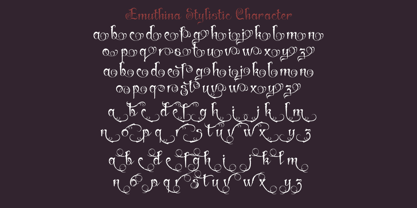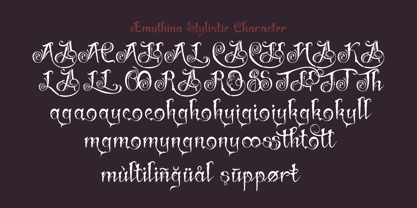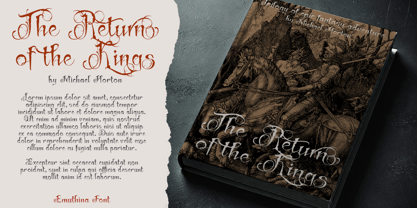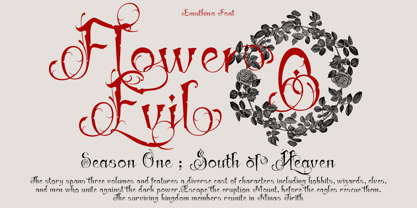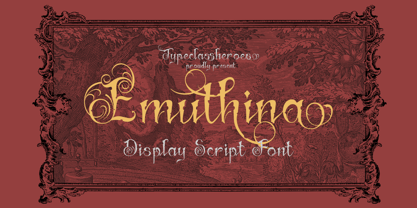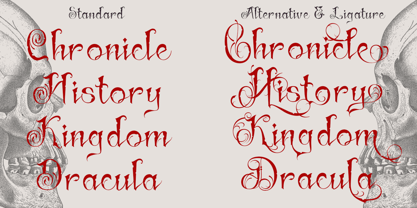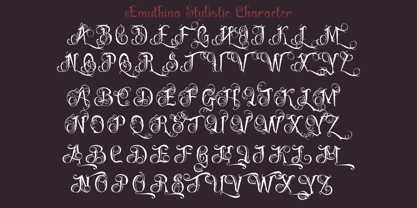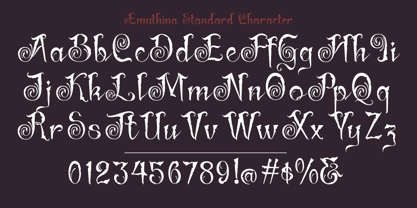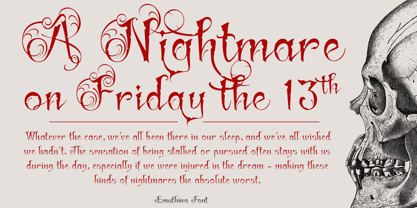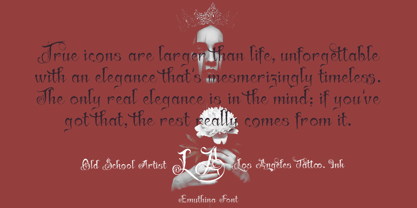
Emuthina
by TypeClassHeroes
The Emuthina Font Family was designed by Suandana ipandemade and published by TypeClassHeroes. Emuthina contains 1 styles. More about this family
Emuthina is a decorative script that has a strong 1900s era vibe, so the font is really a match for your project with a vintage theme, but with a twist much simpler. This font is perfectly made to be a logo, and the other various formal forms such as invitations, labels, logos, magazines, books cover, greeting cards, packaging, fashion, novels, labels whether you’re creating digital content or printed materials.
Designers: Suandana ipandemade
Foundry: TypeClassHeroes